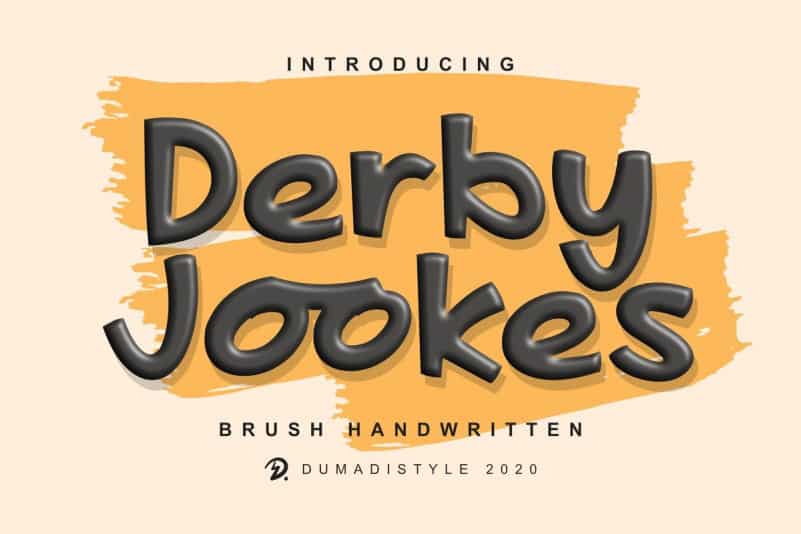
Derby Jookes Display Font
Derby Jookes Display Font embodies fun, uniqueness and authenticity. This dazzling handwritten font will turn any creative idea into a standout. It’s a cute and adorable freestyle font. Made from font designer named DUMADI.
It is a cartoon style font great for cute designs, kids right, fun, and extraordinary. Derby Jokes fit into children’s celebration designs, logos, t-shirt designs, quotes, and title designs for any event.